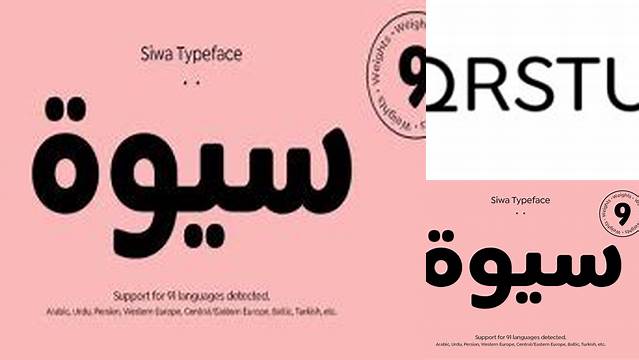
Introduction to Siwa Font Family
Hey guys! Have you ever stumbled upon a font that just speaks to you? That's how I felt when I first discovered the Siwa Font Family. It's not just another font; it's a versatile and elegant typeface that can elevate your designs to a whole new level. The Siwa Font Family is designed with a modern aesthetic, making it perfect for a wide range of projects, from branding and advertising to editorial design and web content. One of the best things about Siwa is its readability. The clean lines and well-balanced letterforms ensure that your text is easy to read, whether it's a headline or body text. This is crucial because, let's be honest, a beautiful font that's hard to read is pretty useless, right? Plus, the Siwa Font Family often comes with various weights and styles, giving you the flexibility to create visual hierarchy and add emphasis where needed. Whether you need a bold statement or a subtle touch, Siwa has got you covered. We'll dive into the specifics of what makes this font family so unique and why you should consider adding it to your design toolkit. So, if you're on the hunt for a font that combines elegance with practicality, the Siwa Font Family might just be your new best friend. Let's get started!
1. What is the Siwa Font Family?
The Siwa Font Family is more than just a set of letters; it's a meticulously crafted collection of typefaces designed to bring sophistication and clarity to your projects. What sets it apart is its modern, clean design that effortlessly blends elegance with readability. Think of it as the Swiss Army knife of fonts β versatile enough to tackle a variety of design challenges. The Siwa Font Family typically includes a range of weights, from light and delicate to bold and impactful. This variation allows you to create visual interest and hierarchy in your text, making it easier for your audience to engage with your content. For example, you might use the bold weight for headings and the light weight for body text, creating a clear distinction and guiding the reader's eye. The font family often includes italic styles as well, adding another layer of flexibility. Italic fonts can be used for emphasis, quotes, or even to add a touch of elegance to your design. Beyond the basic weights and styles, the Siwa Font Family is designed with attention to detail. The letterforms are carefully crafted to ensure balance and harmony, making the text visually appealing. This attention to detail is what elevates Siwa from a simple font to a design asset that can truly enhance your work. So, if you're looking for a font that's both versatile and visually stunning, the Siwa Font Family is definitely worth exploring. Itβs a tool that can help you communicate your message effectively while adding a touch of sophistication to your designs.
2. Key Features of Siwa Font
Alright, let's dive into the nitty-gritty of what makes the Siwa Font Family stand out from the crowd. We're not just talking about aesthetics here; we're talking about the features that make this font a powerhouse for designers. One of the key features is its versatility. The Siwa Font Family typically includes a range of weights, from thin and light to extra-bold and black. This means you have a wide spectrum of options to play with, allowing you to create visual hierarchy and emphasize specific parts of your text. Imagine using a light weight for a clean, minimalist design and then switching to a bold weight for a strong, impactful headline. The possibilities are endless! Another notable feature is its legibility. Siwa is designed with clean lines and well-defined letterforms, making it easy to read in both print and digital formats. This is super important because a beautiful font is useless if your audience can't read it. Whether you're designing a website, a brochure, or a poster, legibility should always be a top priority. The Siwa Font Family also often includes a variety of styles, such as italics, condensed, and expanded versions. These additional styles give you even more flexibility to customize your typography and create unique designs. For example, italics can add a touch of elegance or emphasis, while condensed versions can help you fit more text into a limited space. Beyond the technical features, the overall aesthetic of the Siwa Font Family is modern and sophisticated. It's a font that can elevate your designs and make them look professional and polished. So, whether you're a seasoned designer or just starting out, understanding the key features of Siwa can help you make the most of this fantastic font family.
3. Benefits of Using Siwa Font Family
Okay, so we know what the Siwa Font Family is and some of its key features, but why should you actually use it? What are the real benefits of incorporating this font into your design projects? Let's break it down. First and foremost, the versatility of Siwa is a major advantage. Because it comes in a variety of weights and styles, you can use it for pretty much anything β from headings and subheadings to body text and captions. This means you don't have to hunt for multiple fonts to create a cohesive design; Siwa can handle it all. Think about it: you can use a bold weight for your headlines to grab attention, a regular weight for your body text for easy reading, and an italic style for emphasis or quotes. It's like having a full typography toolkit in one family. Another significant benefit is the professional aesthetic that Siwa brings to your designs. It has a clean, modern look that can instantly elevate your work. Whether you're designing a website, a logo, or a brochure, Siwa can help you create a polished and sophisticated final product. This is especially important for branding, where consistency and visual appeal are key. Readability is another huge plus. We've touched on this before, but it's worth emphasizing. The Siwa Font Family is designed with clear, well-defined letterforms that are easy to read, even at small sizes. This is crucial for ensuring that your message is effectively communicated to your audience. After all, what's the point of having a beautiful design if no one can read the text? Beyond the practical benefits, using Siwa can also save you time and effort. Because it's so versatile, you can streamline your design process and focus on the creative aspects of your project. You won't have to spend hours searching for the perfect font combination; Siwa has you covered. So, if you're looking for a font that's versatile, professional, readable, and a time-saver, the Siwa Font Family is definitely worth considering. It's a tool that can help you create stunning designs with ease.
4. Siwa Font Family Styles and Weights
Alright, let's get into the specifics of the Siwa Font Family's styles and weights. This is where the true versatility of the font shines, giving you a plethora of options to play with in your designs. Understanding these variations is key to making the most of what Siwa has to offer. Generally, the Siwa Font Family includes a range of weights, typically starting from Thin or ExtraLight, moving through Light, Regular, Medium, Bold, ExtraBold, and sometimes even Black. Each weight has its own unique character and can be used for different purposes. For example, the lighter weights (Thin and Light) are perfect for adding a delicate touch to your designs, while the heavier weights (Bold and Black) are ideal for making strong statements and grabbing attention. The Regular weight is your go-to for body text, providing a clean and readable option for longer paragraphs. Beyond the weights, the Siwa Font Family often includes italic styles for each weight. Italics are a fantastic way to add emphasis or a touch of elegance to your text. They can be used for quotes, captions, or any other text you want to highlight. Think of them as the design equivalent of a well-placed exclamation point β use them sparingly for maximum impact. Some versions of the Siwa Font Family may also include condensed or expanded styles. Condensed styles are narrower, allowing you to fit more text into a limited space, while expanded styles are wider, creating a more open and airy feel. These variations can be particularly useful in situations where space is a concern or when you want to create a specific visual effect. The combination of different weights and styles gives you a vast toolkit to work with. You can create visual hierarchy by using different weights for headings and body text, add emphasis with italics, and adjust the overall feel of your design with condensed or expanded styles. By understanding these variations, you can truly unleash the power of the Siwa Font Family and create stunning, professional-looking designs.